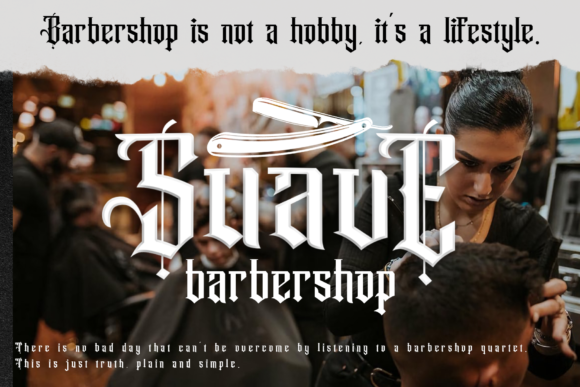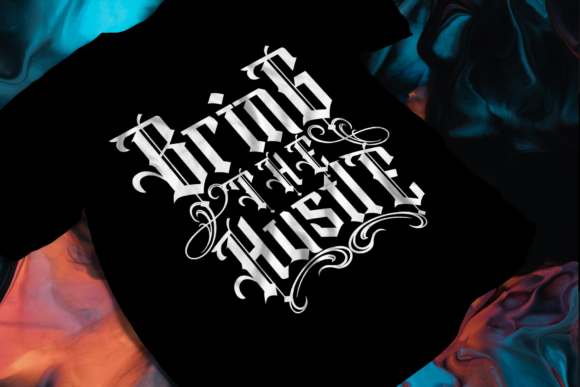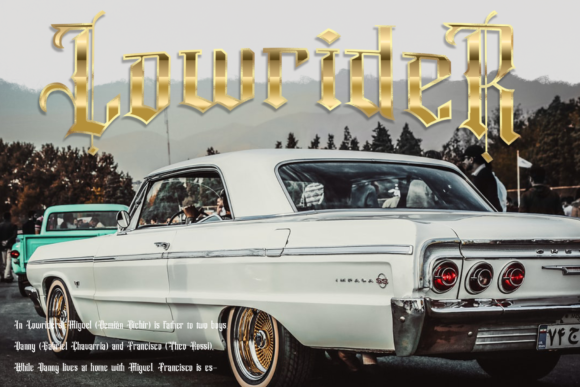
Introduction to Cromartyc Font
Cromartyc is a modern blackletter font.
Cromartyc is great for product logo, poster title, headline, packaging, badge, packaging logo, clothing brand logo, Vintage design, and much more .
Cromartyc Font offers exceptional quality and versatility, making it a valuable addition to your design toolkit. Whether you’re creating for personal projects or commercial use, Cromartyc Font delivers professional results.